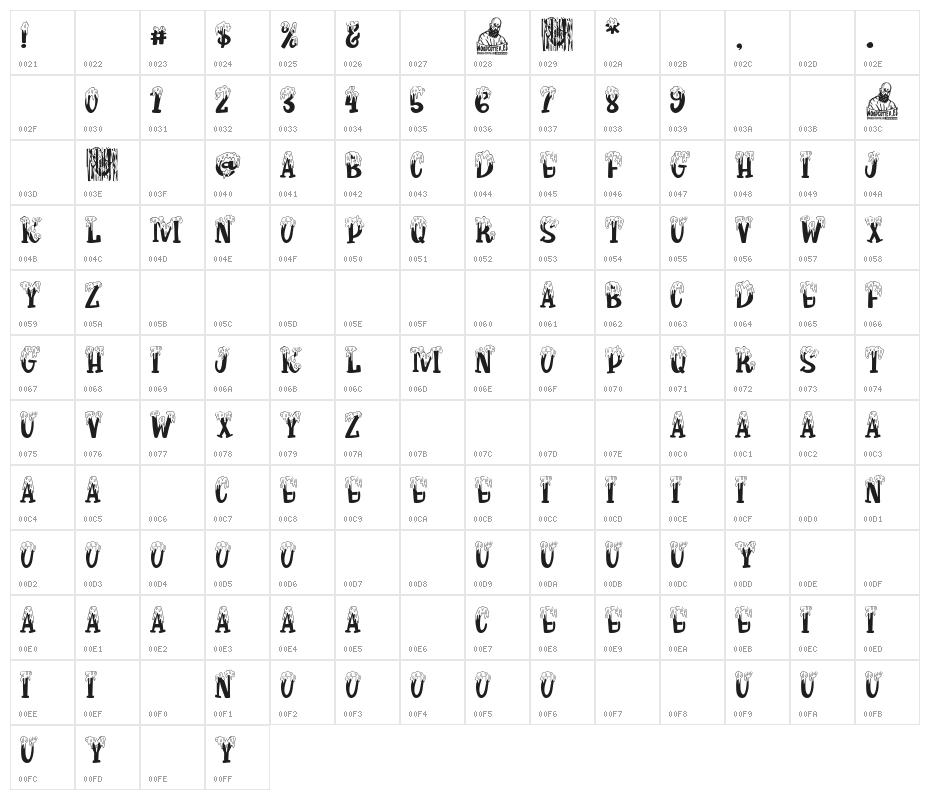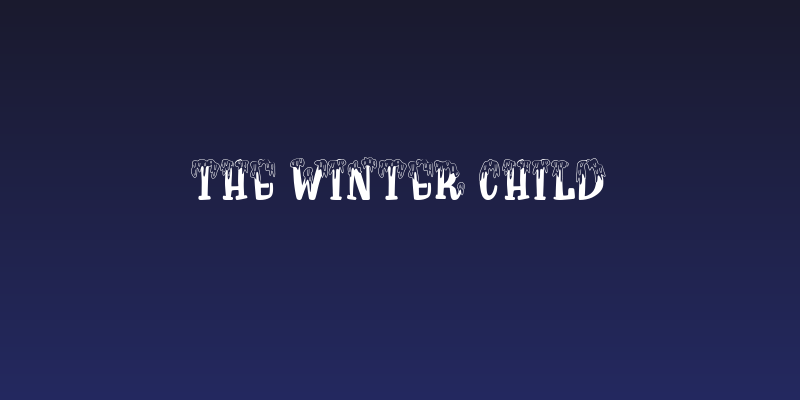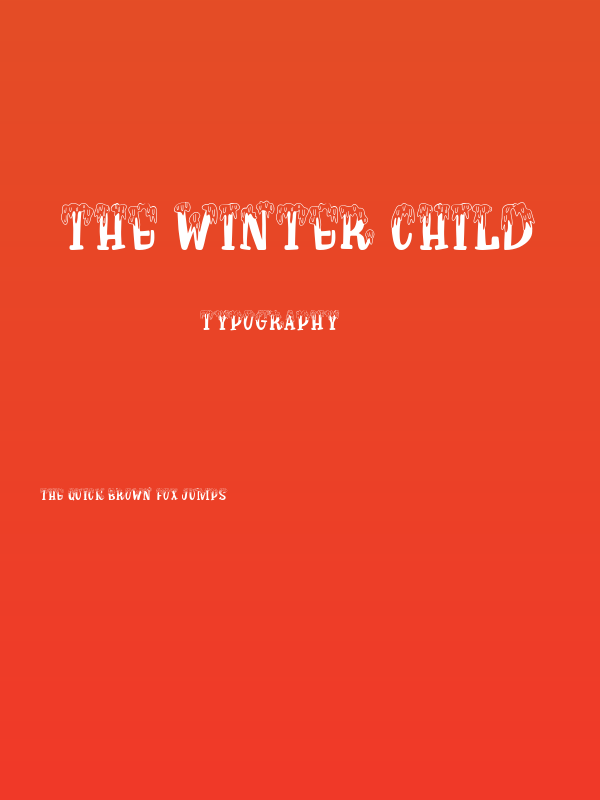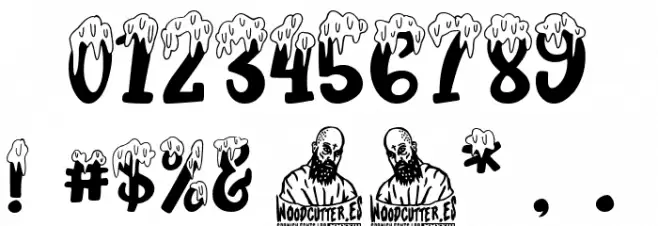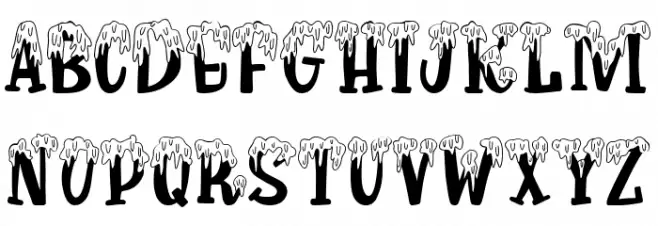
The Winter Child Font
The Winter Child Description
This font exudes a playful and whimsical winter theme, with each character adorned with icicle-like drips that evoke a sense of cold and frost. The letters are bold and slightly irregular, adding to the charm and uniqueness of the design. The uppercase and lowercase letters maintain a consistent style, ensuring readability while still capturing the essence of a snowy, festive atmosphere. The numbers and special characters follow the same frosty design, making them perfect for holiday-themed projects. The overall appearance is both decorative and functional, suitable for creating eye-catching headlines or themed graphics.
| Proposed Projects | Ideal for holiday cards, winter festival posters, seasonal advertisements, and children's book covers. |